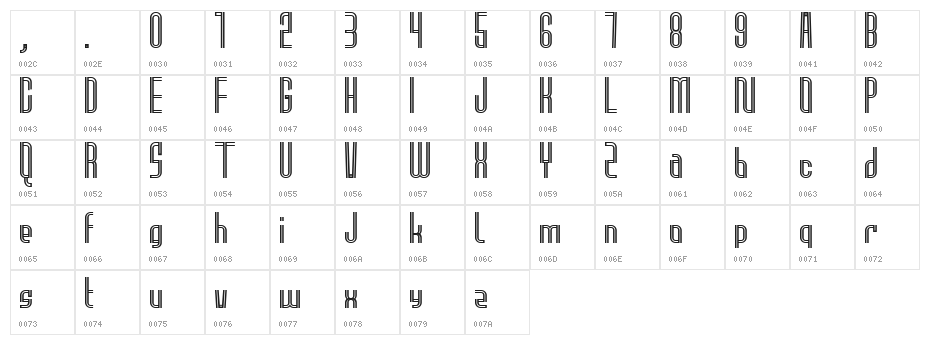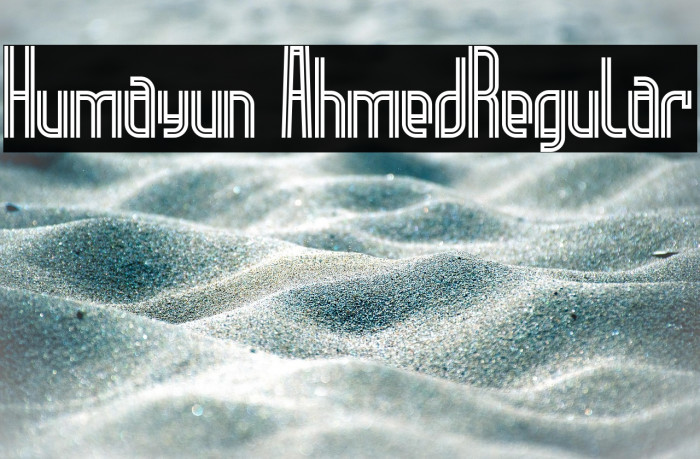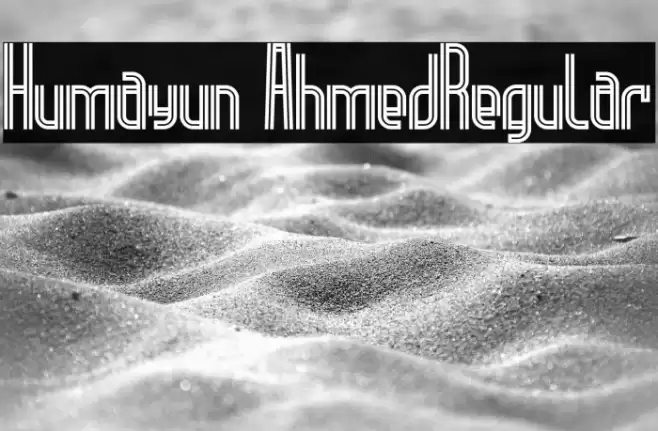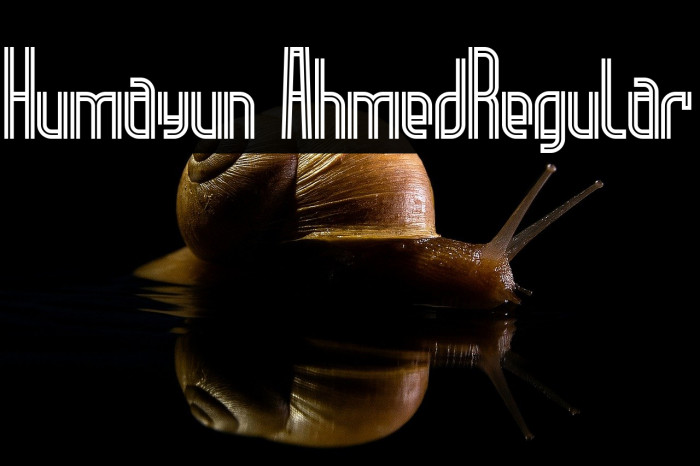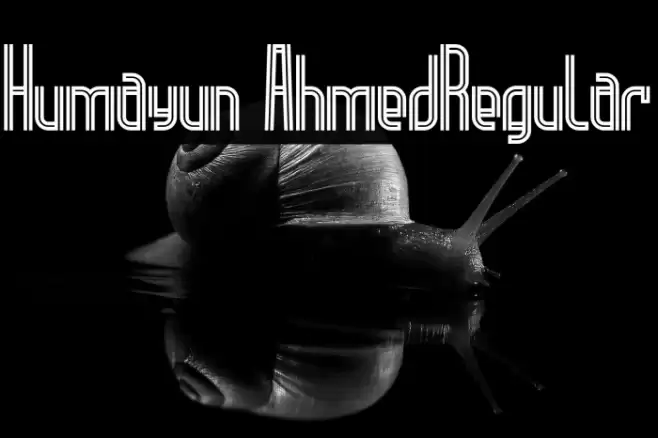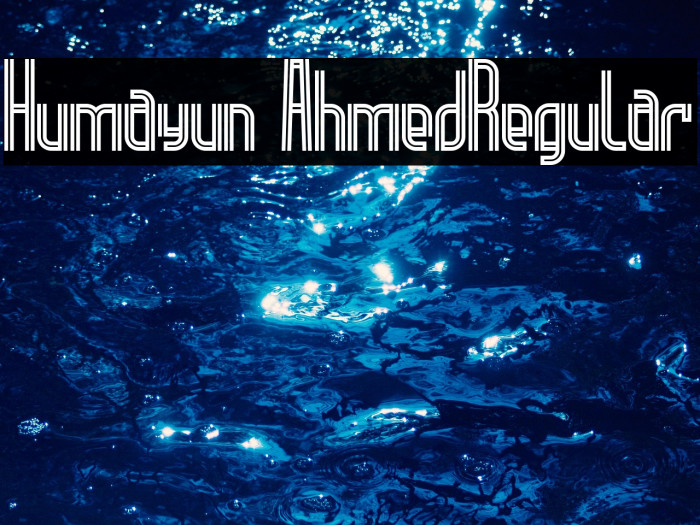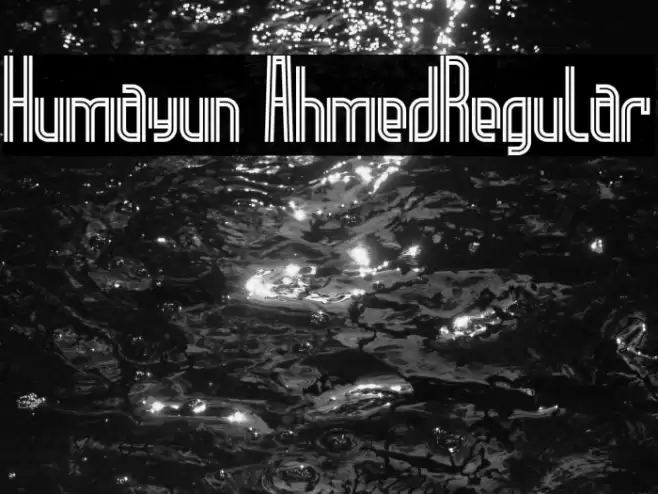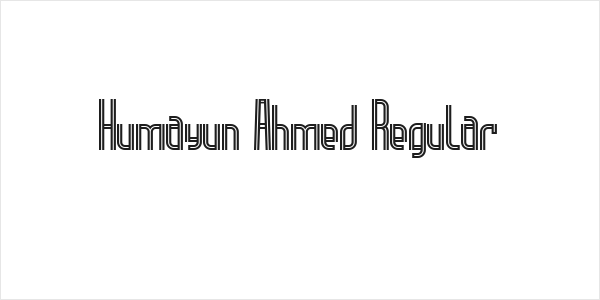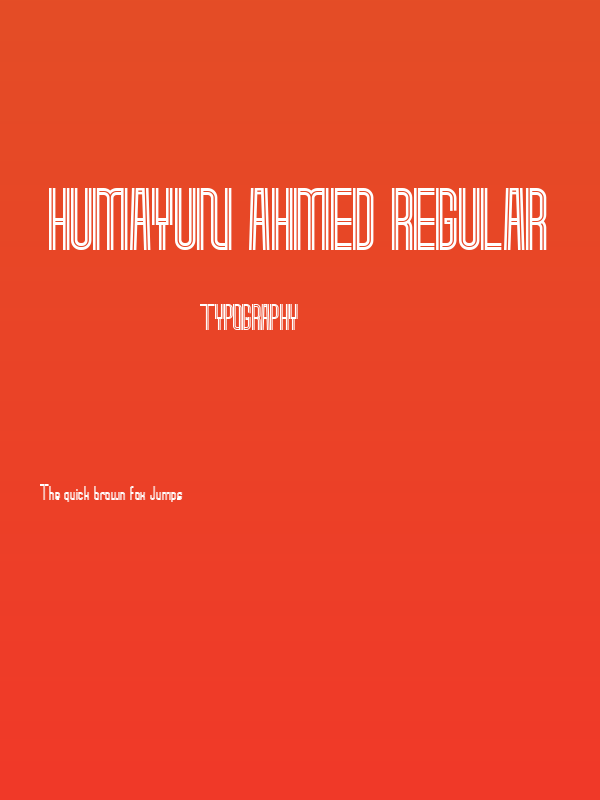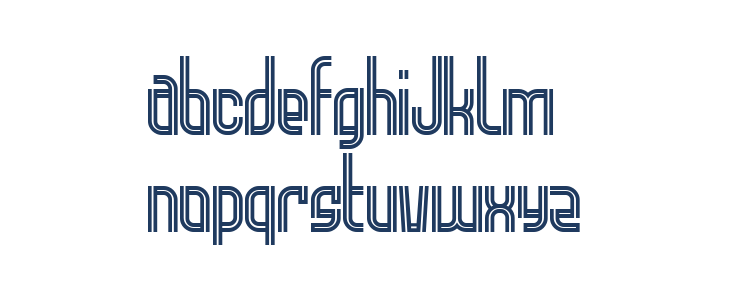
Humayun Ahmed-Regular Font
Humayun Ahmed-Regular Description
This font features a unique, modern design with a geometric and linear aesthetic. The characters are composed of multiple parallel lines, creating a sense of depth and intricacy. The uppercase and lowercase letters maintain a consistent style, with elongated forms and a futuristic appearance. The numerals and special characters follow the same design principles, ensuring uniformity across all glyphs. This font stands out due to its bold, architectural structure, making it ideal for creative and eye-catching designs.
| Proposed Projects | Ideal for branding, posters, album covers, and any project requiring a bold, modern aesthetic. |